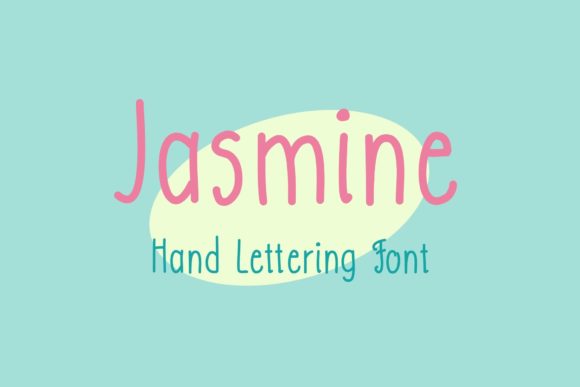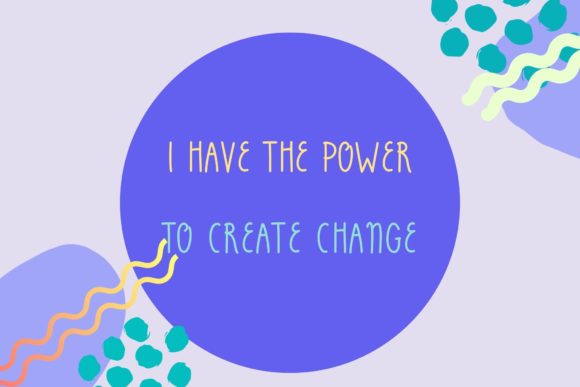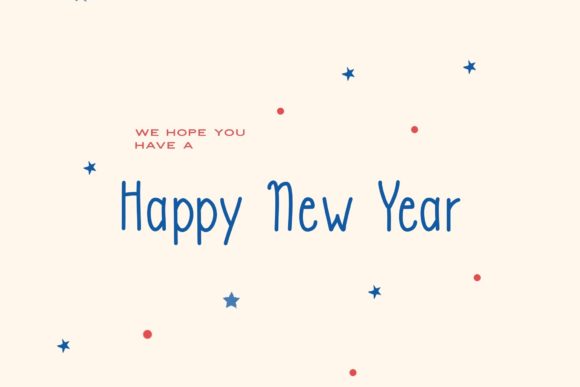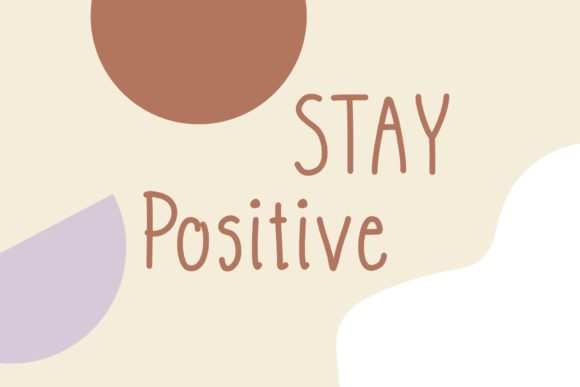
About Jasmine Font
Jasmine is a quirky and natural handwritten font, perfect for informal occasions and various creative projects.
Use the font for Cricut projects, design, logos, branding, decor, mugs, pantry labels, wedding invitations, stickers, business cards, greeting cards, posters, social media, planner prints, and more!